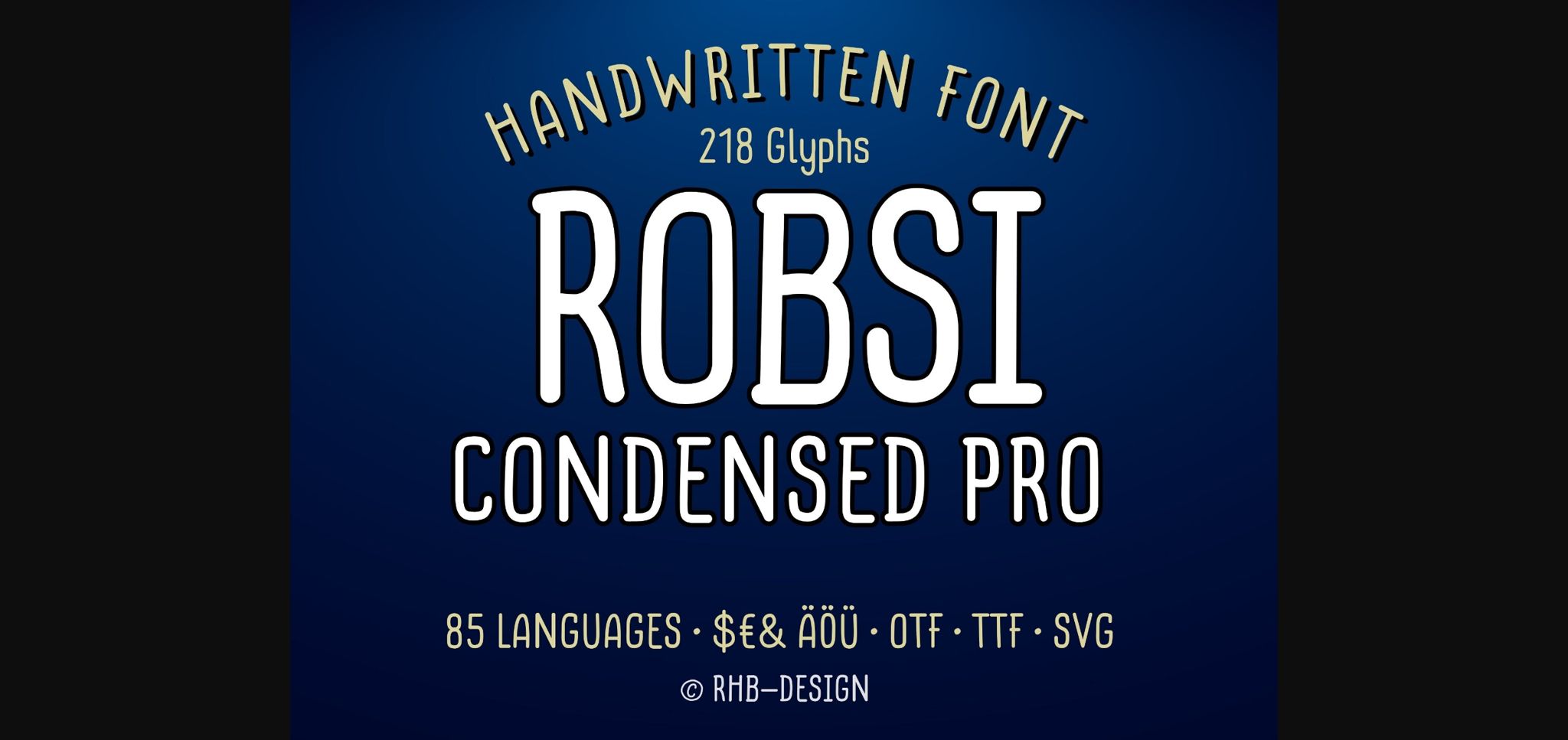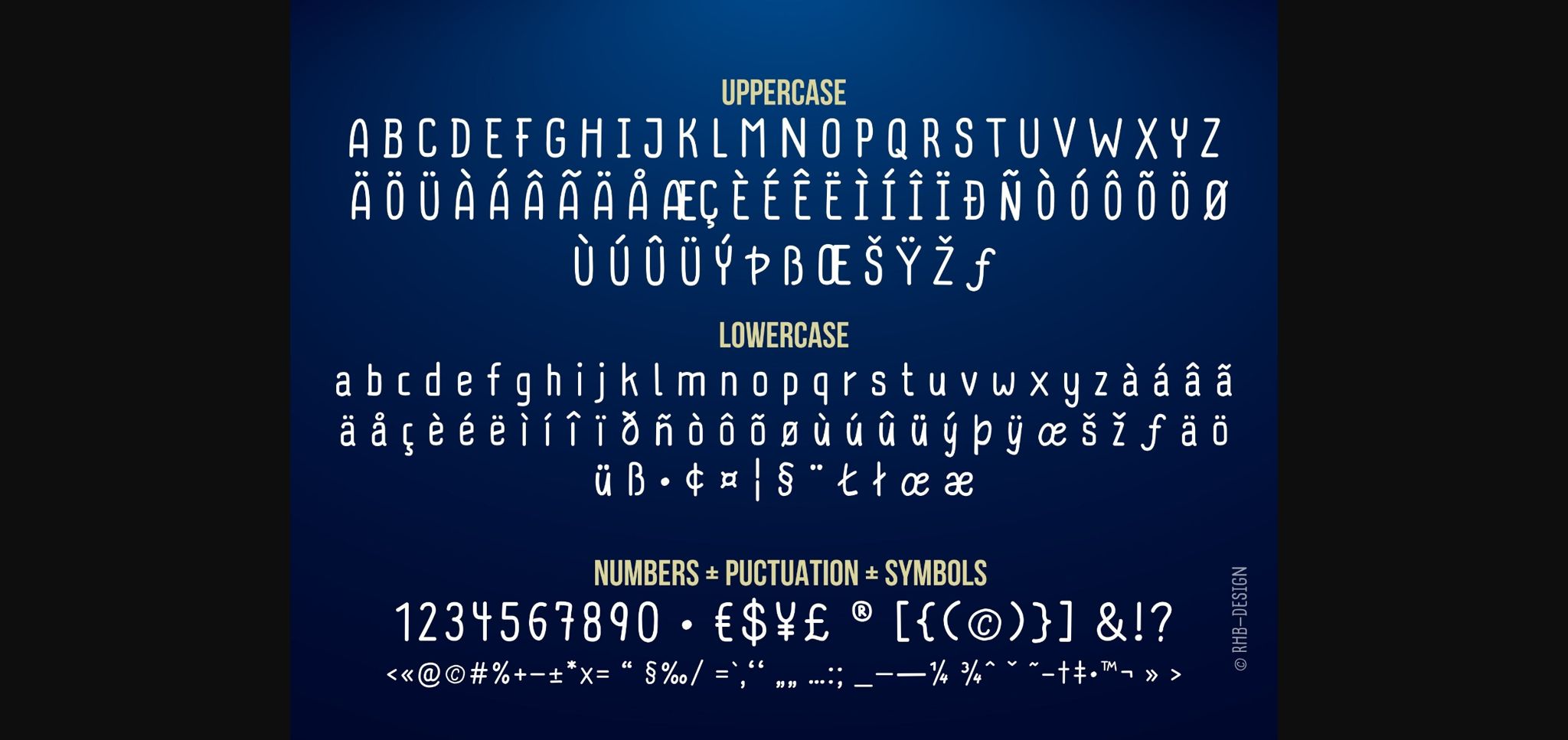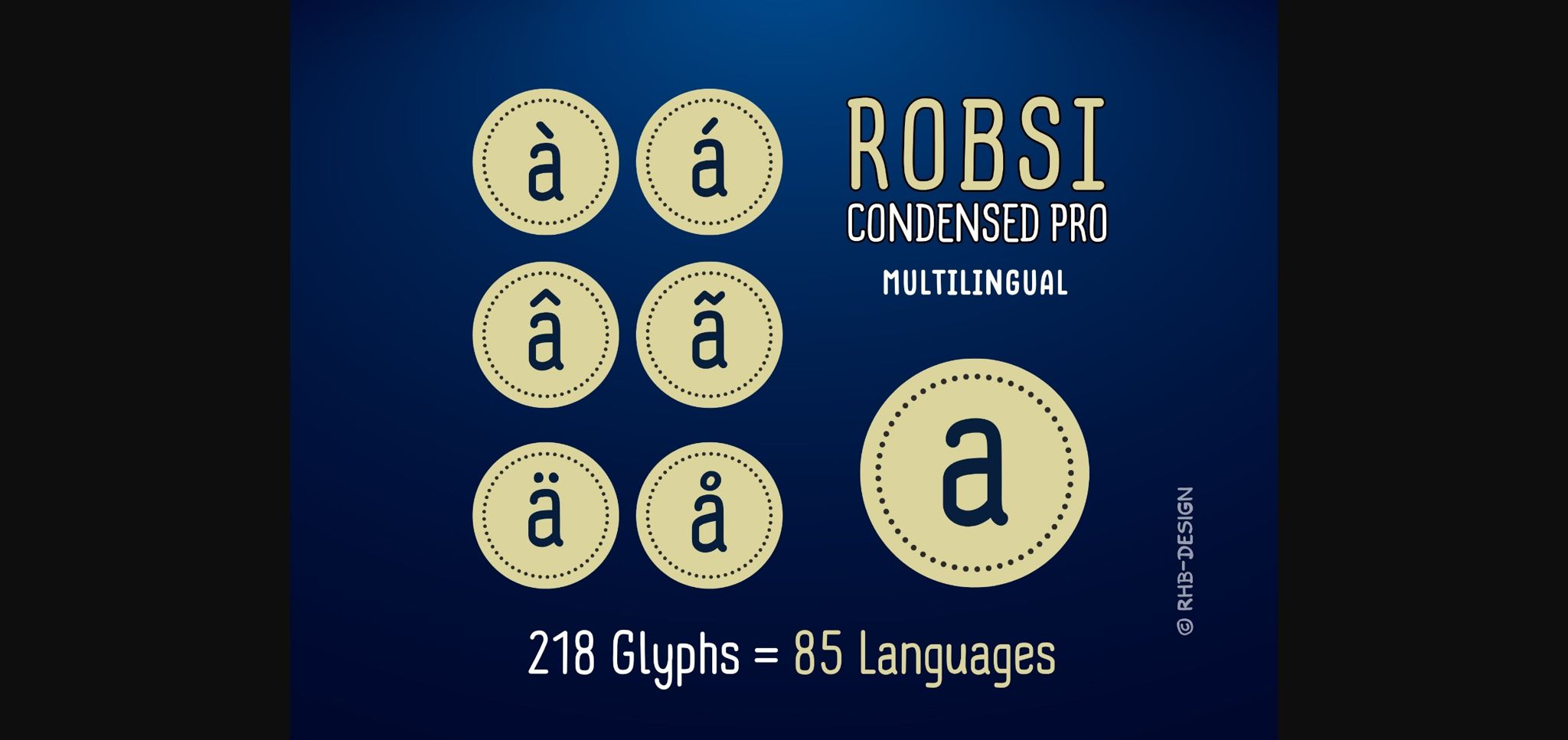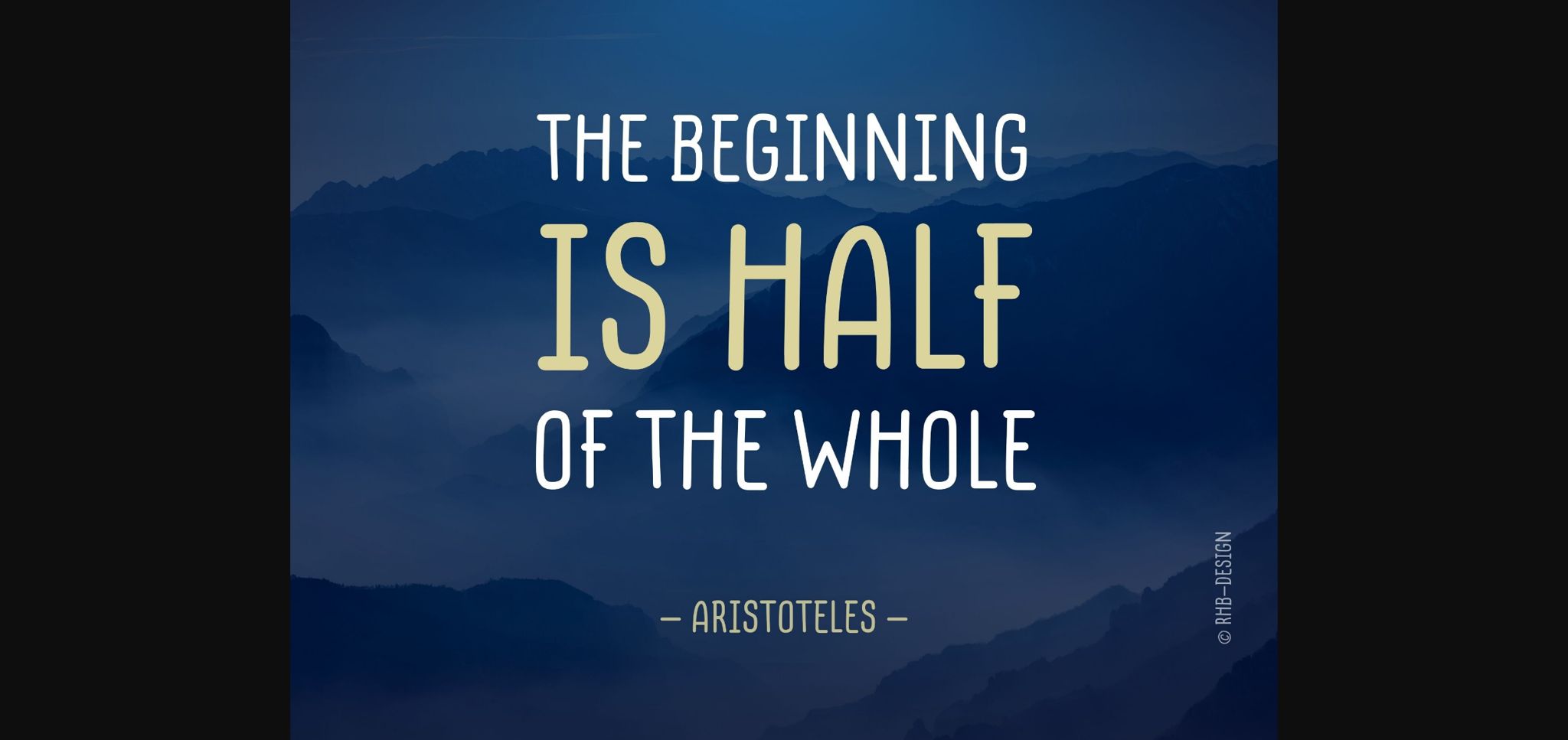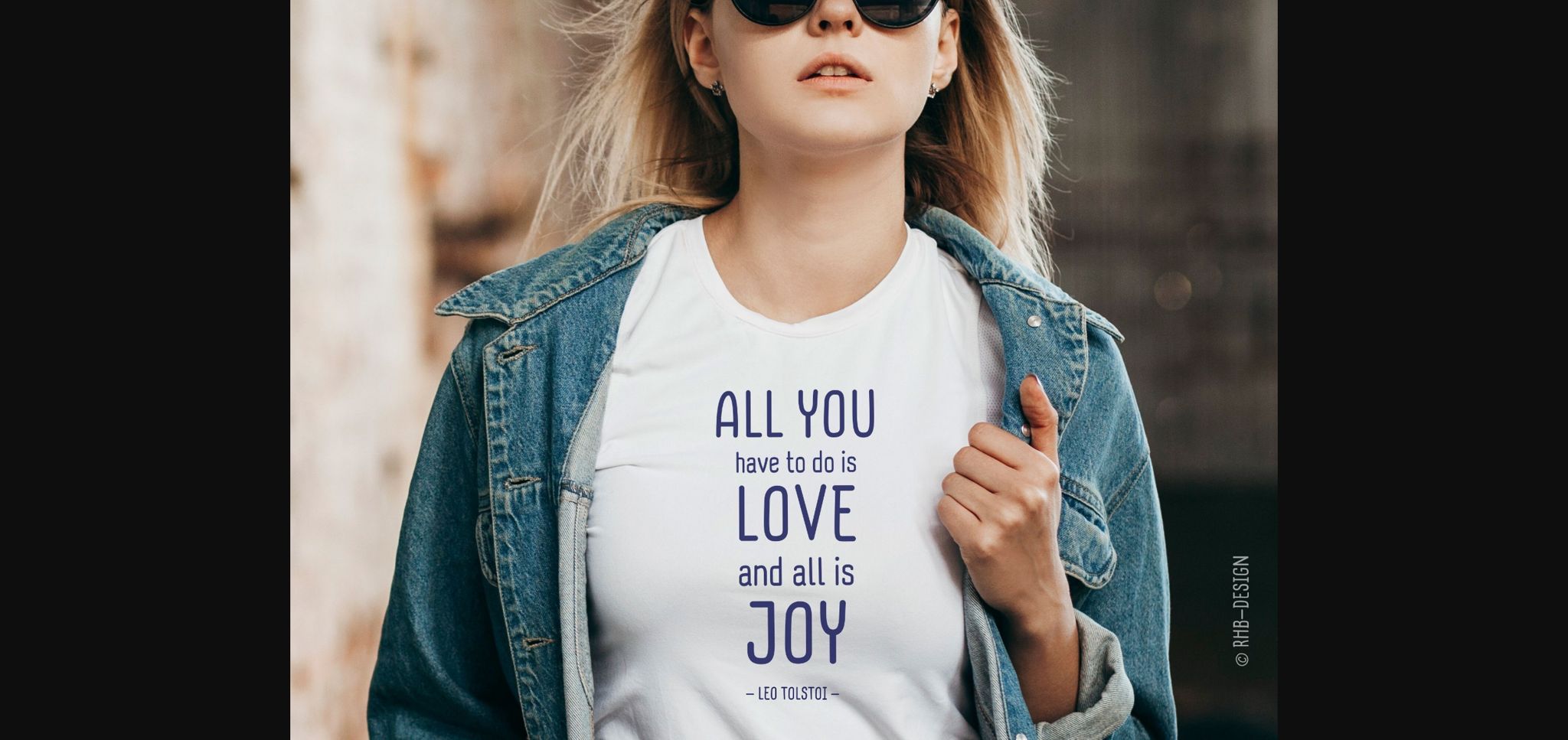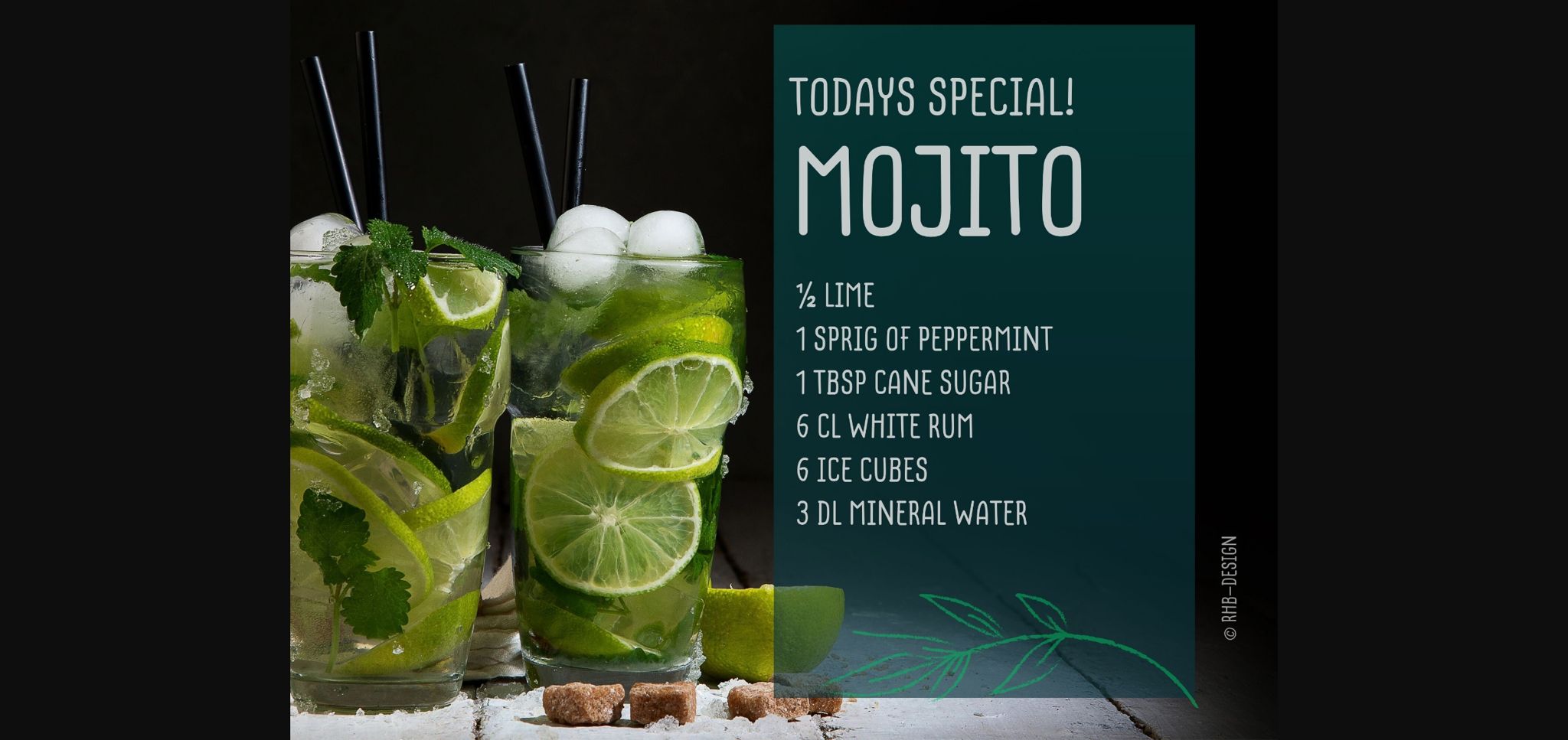
About Rossi Condensed Pro Font
Unleash your creativity with Robsi Condensed Pro, a meticulously handcrafted font. Designed using an Apple Pencil on an iPad Pro, this typography conveys a personal touch. More than just font, itβs an amalgamation of 218 meticulously drawn glyphs. This blend includes capital and lowercase letters, accented characters, umlauts, universal euro symbols, numerals, and punctuation marks.